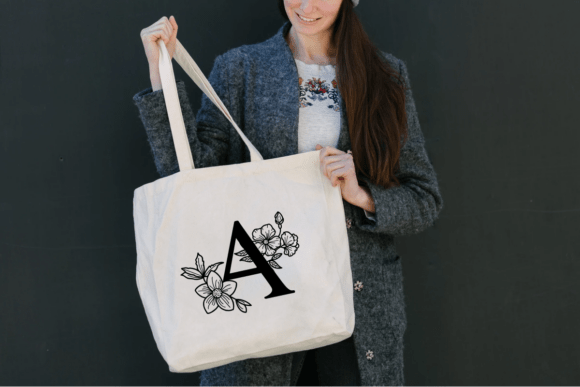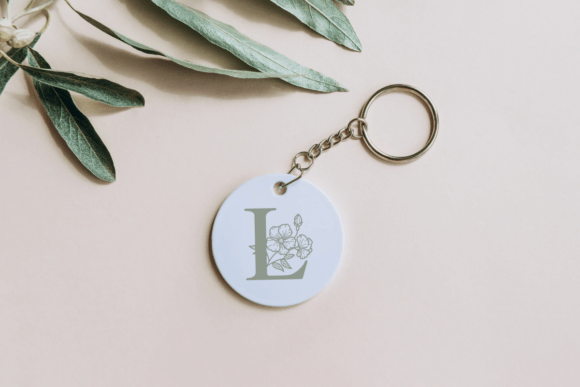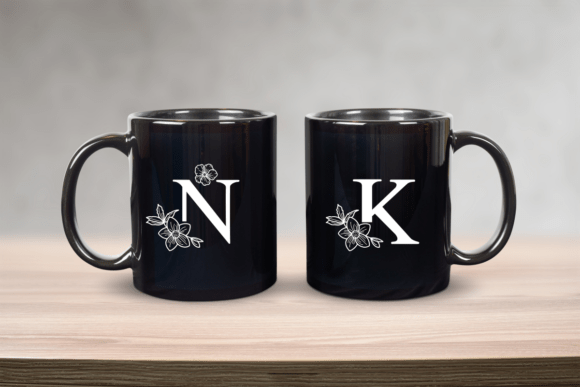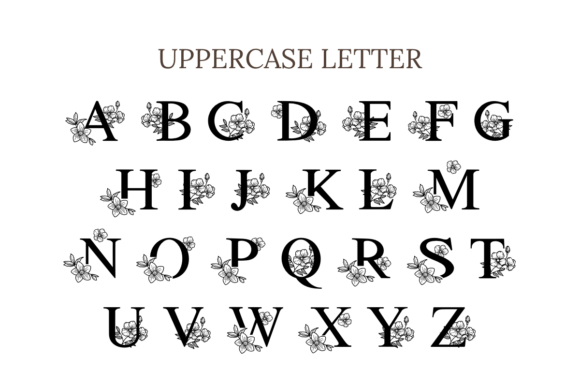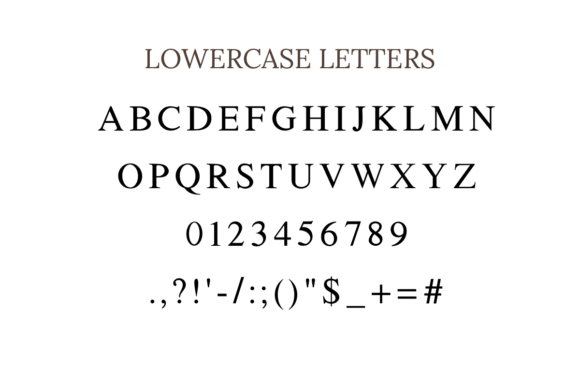
Introducing Flora Monogram Font: Elegance Redefined
Are you searching for a font that exudes sophistication and elegance? Look no further than the Flora Monogram Font. This beautifully refined decorative font combines classic serif letterforms with delicate floral elements, making it perfect for a variety of design projects. From elegant branding to wedding invitations, packaging, and stationery, Flora Monogram Font is sure to add a touch of luxury to your work.
A Timeless Aesthetic
Flora Monogram Font boasts a timeless aesthetic that is reminiscent of traditional printing. Its classic serif letterforms provide a sense of familiarity and stability, while the delicate floral elements add a touch of whimsy and romance. This font is perfect for designers and crafters who want to create elegant and sophisticated designs that stand the test of time.
Perfect for Elegant Branding
Flora Monogram Font is ideal for elegant branding projects. Its refined and sophisticated aesthetic makes it perfect for luxury brands, high-end products, and premium services. Whether you’re creating a logo, monogram, or typography-based branding element, Flora Monogram Font is sure to add a touch of elegance and sophistication.
Wedding Invitations and Stationery
Flora Monogram Font is also perfect for wedding invitations, stationery, and other paper crafts. Its delicate floral elements and classic serif letterforms make it ideal for creating beautiful and elegant wedding stationery. Whether you’re a designer or a crafty DIY bride, Flora Monogram Font is sure to add a touch of romance and sophistication to your wedding stationery.
Packaging and Editorial Projects
Flora Monogram Font is not just limited to branding and wedding stationery. Its elegant aesthetic makes it perfect for packaging and upscale editorial projects. Whether you’re creating a luxury product package or a high-end editorial spread, Flora Monogram Font is sure to add a touch of sophistication and elegance.
Each Character Feels Like a Piece of Art
One of the standout features of Flora Monogram Font is its attention to detail. Each character feels like a piece of art, with delicate floral elements and intricate details. This font is perfect for designers and crafters who want to create beautiful and unique designs that stand out from the crowd.
Key Features of Flora Monogram Font
- Beautifully refined decorative font
- Combines classic serif letterforms with delicate floral elements
- Perfect for elegant branding, wedding invitations, packaging, and stationery
- Timeless aesthetic adds sophistication to monograms, logos, and upscale editorial projects
- Each character feels like a piece of art
Flora Monogram Font is a beautifully refined decorative font that is perfect for designers and crafters who want to create elegant and sophisticated designs. Its timeless aesthetic, delicate floral elements, and classic serif letterforms make it ideal for a variety of design projects, from elegant branding to wedding invitations and packaging. With its attention to detail and beautiful character design, Flora Monogram Font is sure to add a touch of luxury and sophistication to your work.